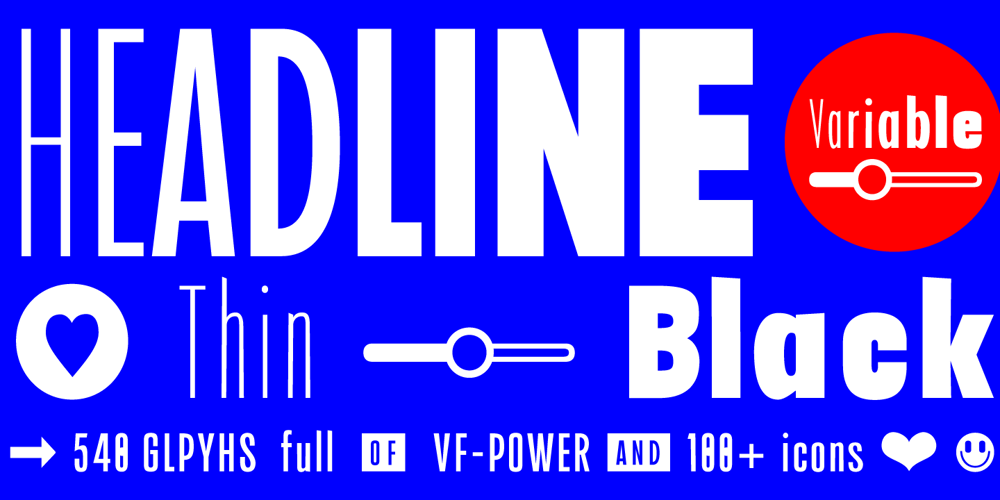
Headline Poster Font Family was designed by Manuel Viergutz and published by TypoGraphicDesign. Headline Poster contains 9 styles and family package options. The variable Sans Serif typeface Headline Poster is designed from 2023 for the font foundry Typo Graphic Design by Manuel Viergutz.The display font based on old original wood letter.The font started from 80 wood letters (analog) and was finally digitalize and extended to 500+ glyphs Revival to Tribute the 1920/1930 in 2023 (digital).9 font-styles (Black, UltraBold, Bold, SemiBold, Medium, Regular, Light, ExtraLight, Thin + 1 icon-style with 540 glyphs (Adobe Latin 3) incl. 100+ decorative extras like icons, arrows, catch words, dingbats, emojis, symbols, geometric shapes (type the word #LOVE for or #SMILE for as OpenType-Feature dlig) and stylistic alternates (3 stylistic sets).For use in logos, magazines, posters, advertisement plus as webfont for decorative headlines. The font works best for display size.Have fun with this font & use the DEMO-FONT (with reduced glyph-set) FOR FREE!■ Font Name: Headline Poster■ Font Styles: 9 font-styles (Black, UltraBold, Bold, SemiBold, Medium, Regular, Light, ExtraLight, Thin + 1 icon-style + DEMO (with reduced glyph-set)■ Font Category: Variable Sans Serif for headline size■ Glyph Set: 500+ glyphs (incl. decorative extras) Adobe Latin 3■ Language Support (81 languages): Afrikaans Albanian Asu Basque Bemba Bena Breton Catalan Chiga Colognian Cornish Croatian Czech Danish Dutch English Estonian Faroese Filipino Finnish French Friulian Galician German Gusii Hungarian Icelandic Indonesian Irish Italian Kabuverdianu Kalenjin Kinyarwanda Latvian Lithuanian Lower Sorbian Luo Luxembourgish Luyia Machame Makhuwa-Meetto Makonde Malagasy Manx Morisyen North Ndebele Norwegian Bokmål Norwegian Nynorsk Nyankole Oromo Polish Portuguese Quechua Romanian Romansh Rombo Rundi Rwa Samburu Sango Sangu Scottish Gaelic Sena Serbian Shambala Shona Slovak Soga Somali Spanish Swahili Swedish Swiss German Taita Teso Turkish Upper Sorbian Uzbek (Latin) Volapük Vunjo Zulu■ OpenType features (20): aalt case ccmp dlig dnom frac liga lnum locl numr onum ordn sinf ss01 ss02 subs sups kern mark mkmk■ Design Date: 2023